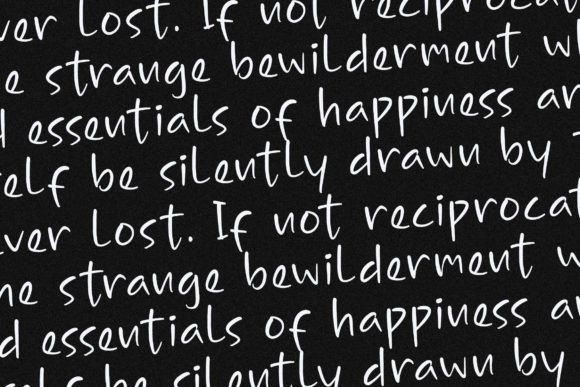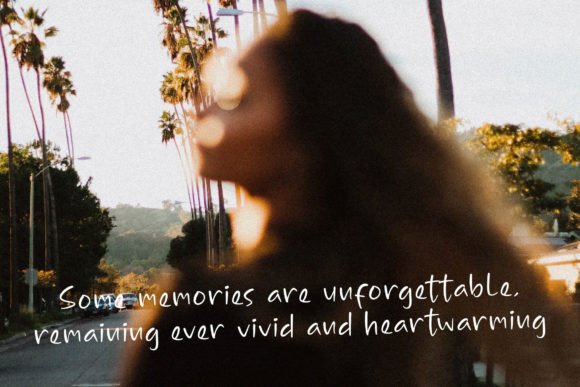
About Sequel Font
“Sequel” is a highly versatile handwritten font that lends itself to a myriad of creative applications. Its elegant and script-inspired design makes it the perfect choice for a wide range of design projects, including:
**1. Logos and Branding Projects:** “Sequel” offers a unique and personalized touch, making it an excellent choice for crafting memorable logos and reinforcing brand identities. Its script style adds a sense of sophistication and distinction to your branding materials.
**2. Homeware Designs:** Elevate the visual appeal of your homeware products with “Sequel.” Whether you’re working on ceramics, glassware, or textiles, this font adds an inviting and stylish aesthetic to your designs.
**3. Product Packaging:** Incorporate “Sequel” into your product packaging to create a sense of elegance and charm. The font’s script taste adds a delightful twist to packaging design, making your products stand out on the shelves.
**4. Custom Mugs:** Personalize mugs with “Sequel” to craft unique and captivating designs. Whether it’s for personal use or as merchandise, this font adds character and charm to every sip.
**5. Inspirational Quotes:** Bring inspirational quotes to life with the artistic flair of “Sequel.” Whether you’re designing posters, social media graphics, or wall art, this font infuses your quotes with elegance and visual appeal.
**6. Poster Designs:** For posters that need a touch of creativity and sophistication, “Sequel” is an ideal choice. Its script style adds an artistic dimension to your poster layouts.
**7. Shopping Bags:** Custom shopping bags featuring “Sequel” typography provide a delightful shopping experience. The font reinforces brand recognition and adds a touch of luxury to the retail process.
**8. Apparel:** Use “Sequel” to design trendy T-shirts that resonate with various styles and themes. Its script-inspired characters give your apparel designs a unique and stylish look.
**9. Book Covers:** Make book titles and author names stand out with the artistic and inviting appearance of “Sequel.” It adds a touch of sophistication to book cover designs.
**10. Name Cards and Invitations:** “Sequel” brings a sense of elegance and charm to name cards, invitations, and greeting cards. It ensures that your event or message is presented beautifully.
**11. Labels:** Create visually appealing labels for products, wines, and more with “Sequel.” Its script style adds a classic and sophisticated touch to label designs.
**12. Photography:** Incorporate “Sequel” into photography projects, watermarks, or captions to infuse your visuals with a stylish and artistic flair.
**13. Special Events:** Whether it’s wedding invitations, party invites, or event promotions, “Sequel” adds elegance and charm to special occasions, leaving a lasting impression.
In summary, “Sequel” is a versatile and beautifully crafted handwritten font that enhances a wide variety of design projects. Its script-inspired aesthetic infuses elegance and sophistication into your creative endeavors, making it a valuable asset for designers and creatives alike.